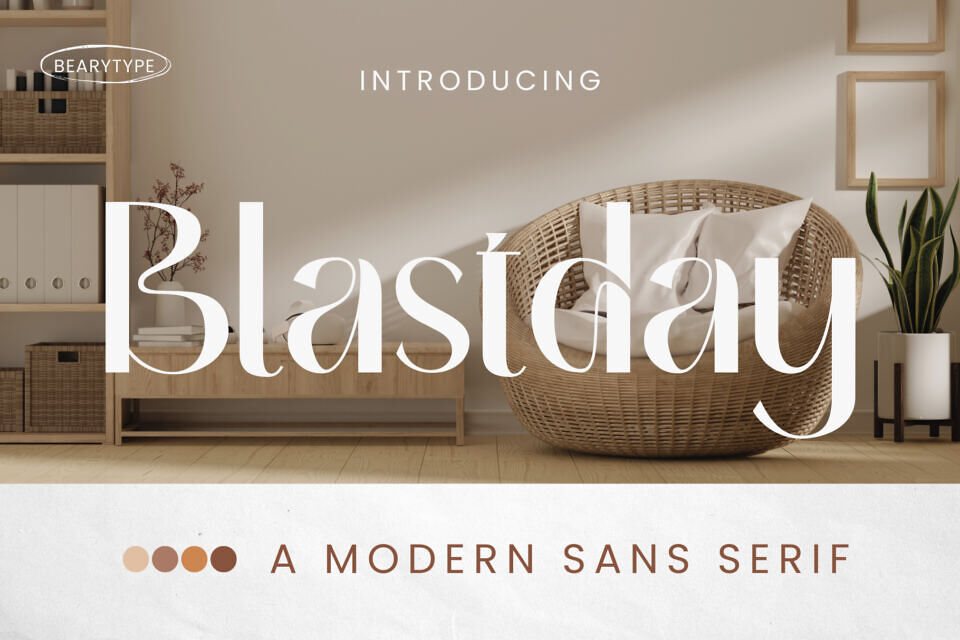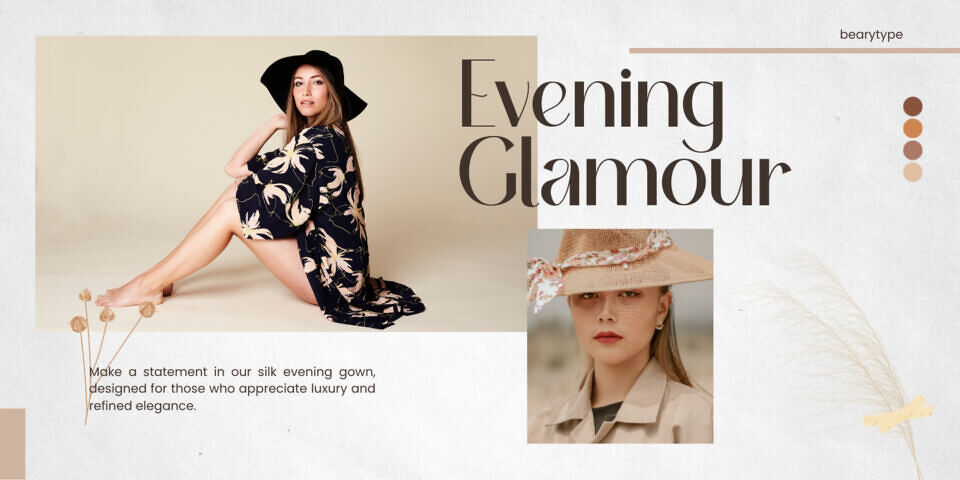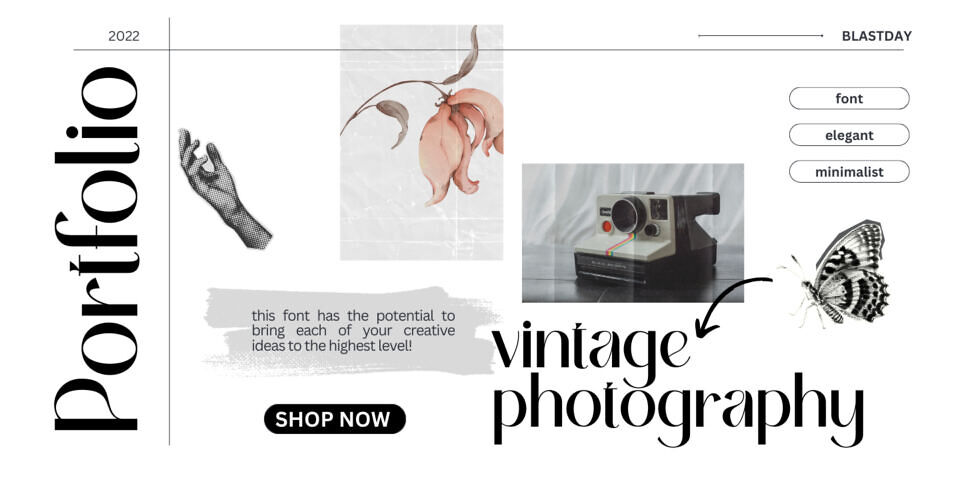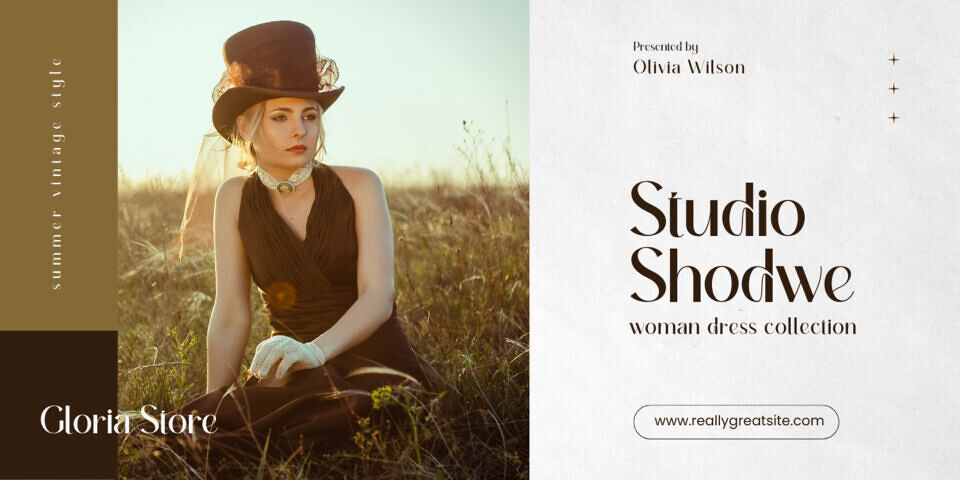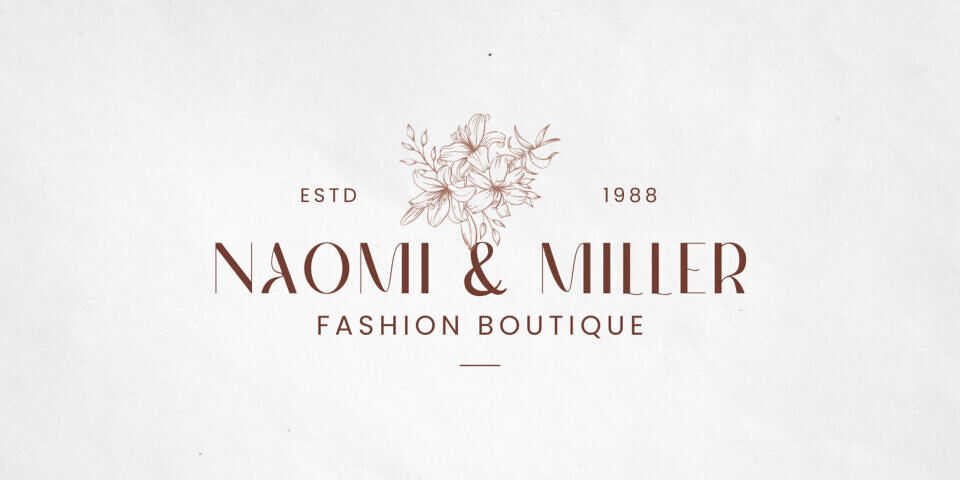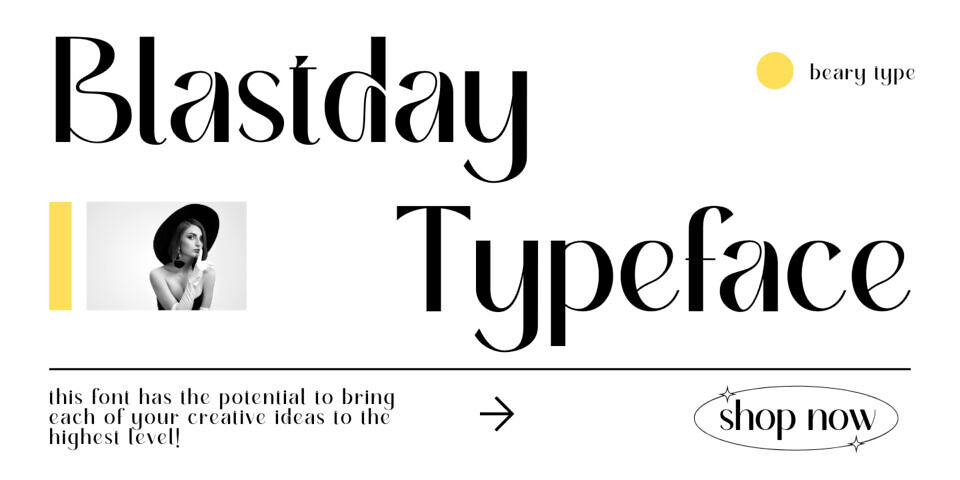
Blastday Font
Blastday is a cool and stylish sans serif font, featuring its own unique style and modern look. Masterfully designed to become a true favorite, this font has the potential to bring each of your creative ideas to the highest level!
This typeface is perfect for an elegant & luxury logo, book or movie title, fashion brand, magazine, clothes, lettering, quotes and more.